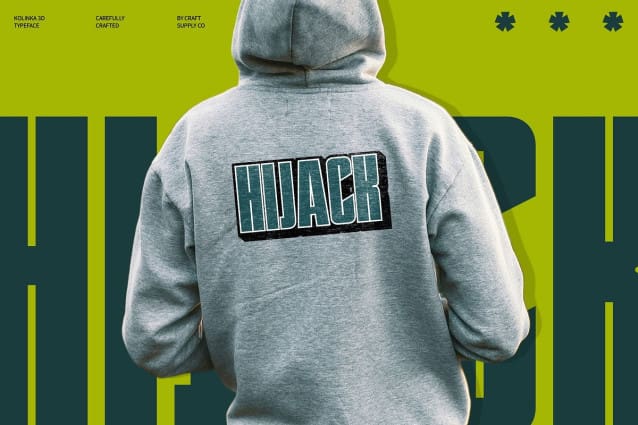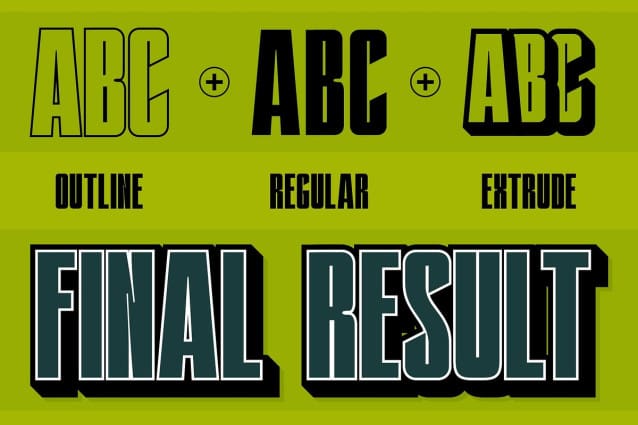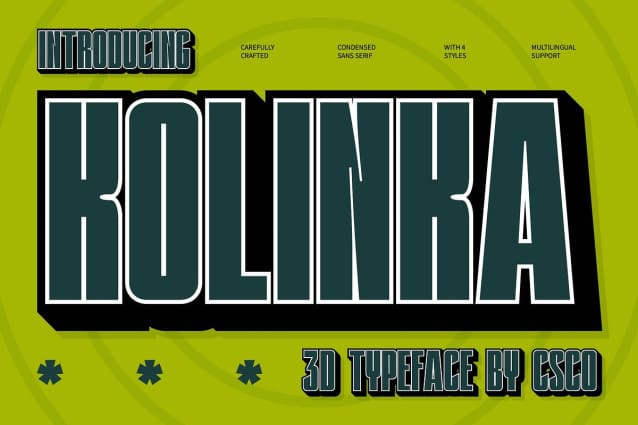
Kolinka 3d Font
Kolinka 3D Font is a bold sans-serif font that combines strength with sleekness, featuring condensed shapes and a sharp, professional inktrap design. The compact letterforms give the font a powerful presence, perfect for designs where emphasis is key. Its bold weight ensures visibility, making it a great choice for impactful headlines and bold branding projects that require a strong, modern look.
Inktrap Details for Precision The inktrap elements at the letter endings add a touch of precision and sharpness, enhancing the font’s modern, professional appeal. These details, typically used in high-quality typographic design, give Kolinka 3D a unique edge, offering not just boldness, but also clarity and professionalism in every character.
Dynamic 3D Effect The added 3D effect introduces depth and dimension, making Kolinka 3D even more striking and engaging. The 3D layer enhances the font’s bold and modern structure, ensuring your design stands out with a visually captivating presence. The added depth draws attention, making it ideal for graphic displays, posters, and branding projects that need to make a memorable impact. Kolinka 3D is designed to make a statement, offering a strong, modern look that’s perfect for graphic-intensive projects. Whether you’re working on headlines, dynamic branding, or striking posters, this font provides the visual emphasis needed to convey confidence and clarity.